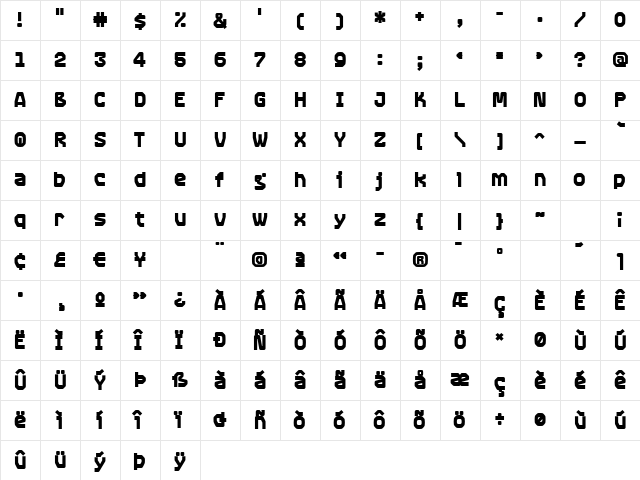
RangeBlack Regular
Design Context for RangeBlack Typeface
RangeBlack offers clean, dependable letterforms without strong stylistic allegiance, making it a practical choice for designers who need flexibility.